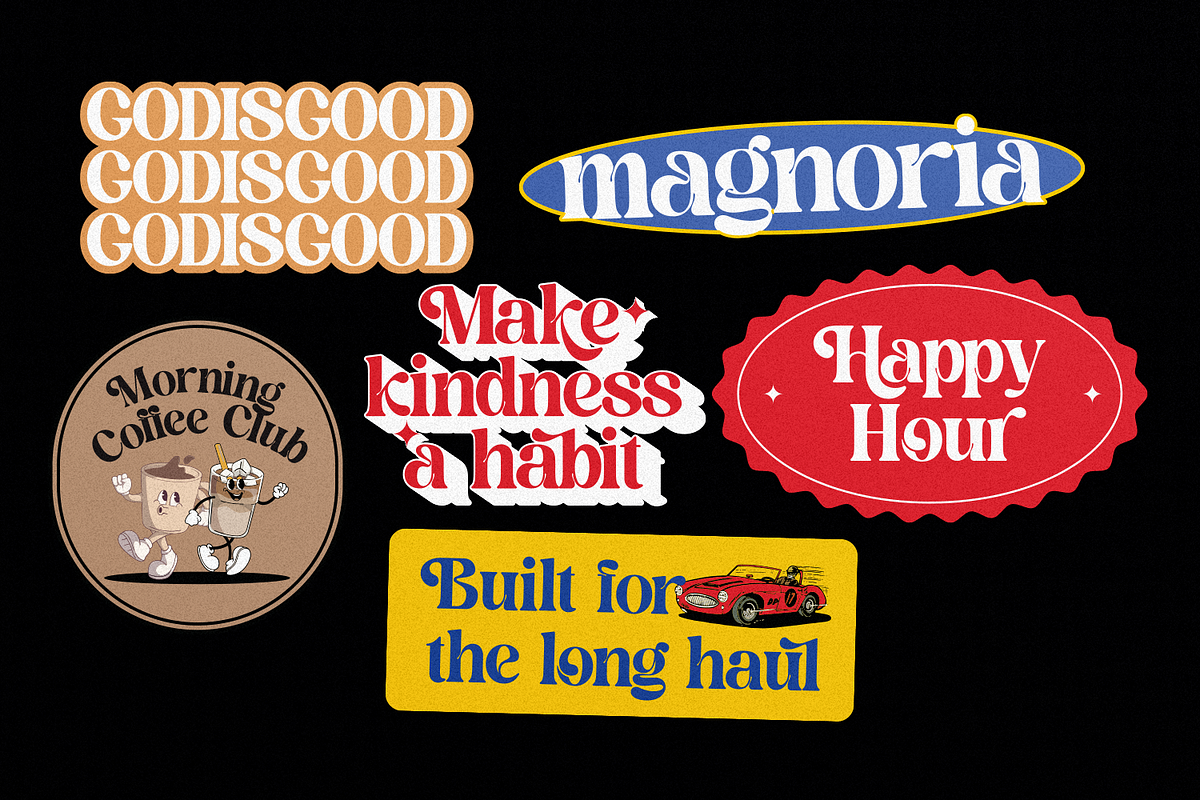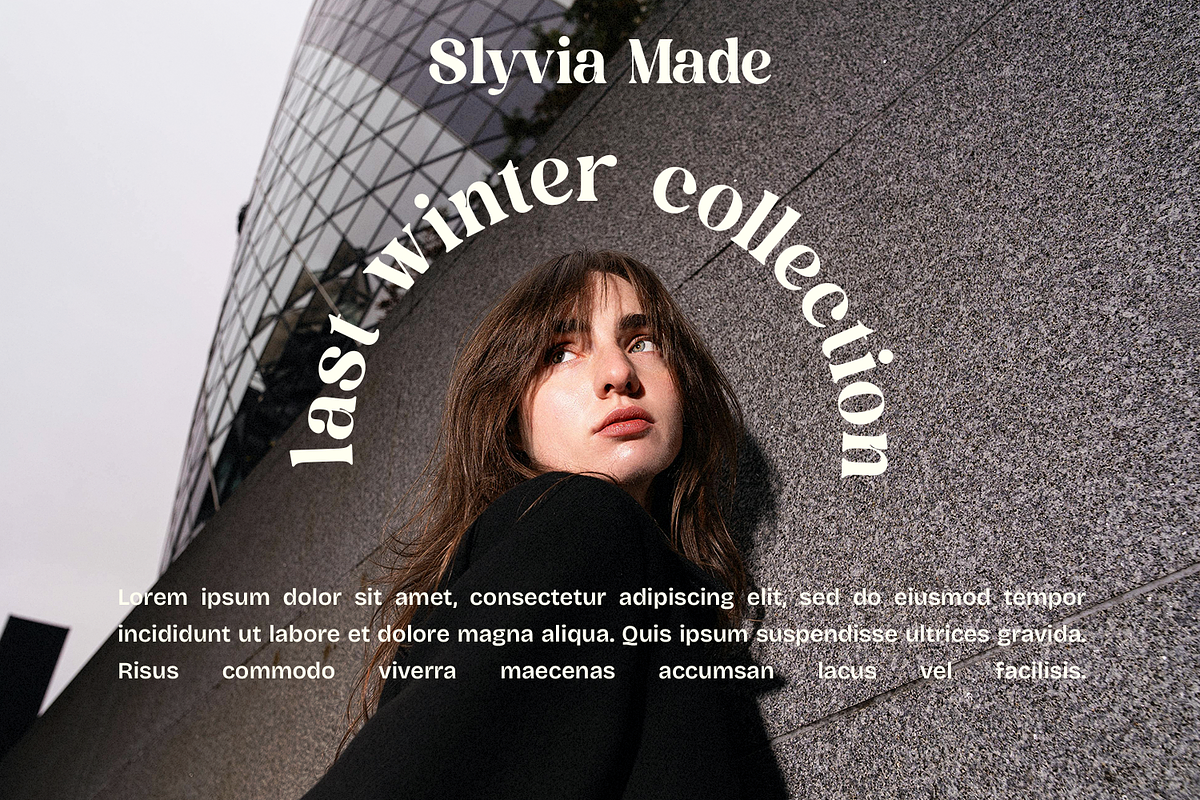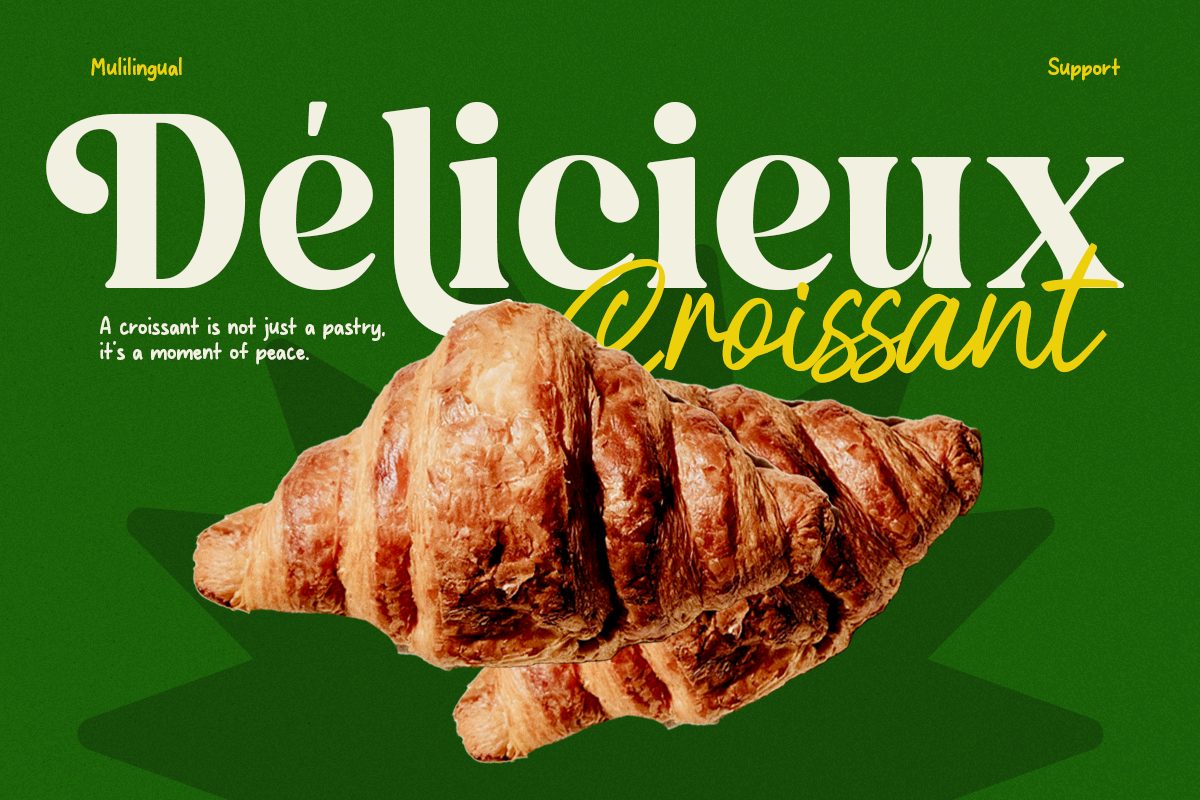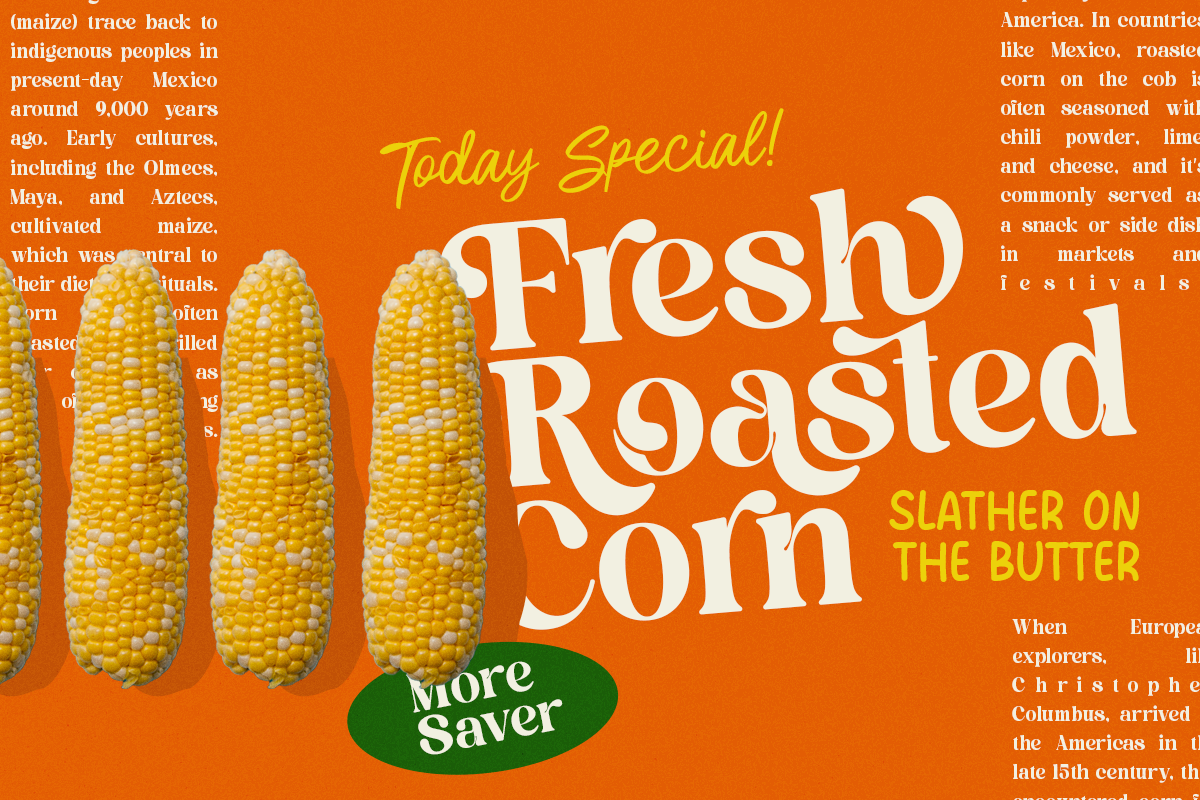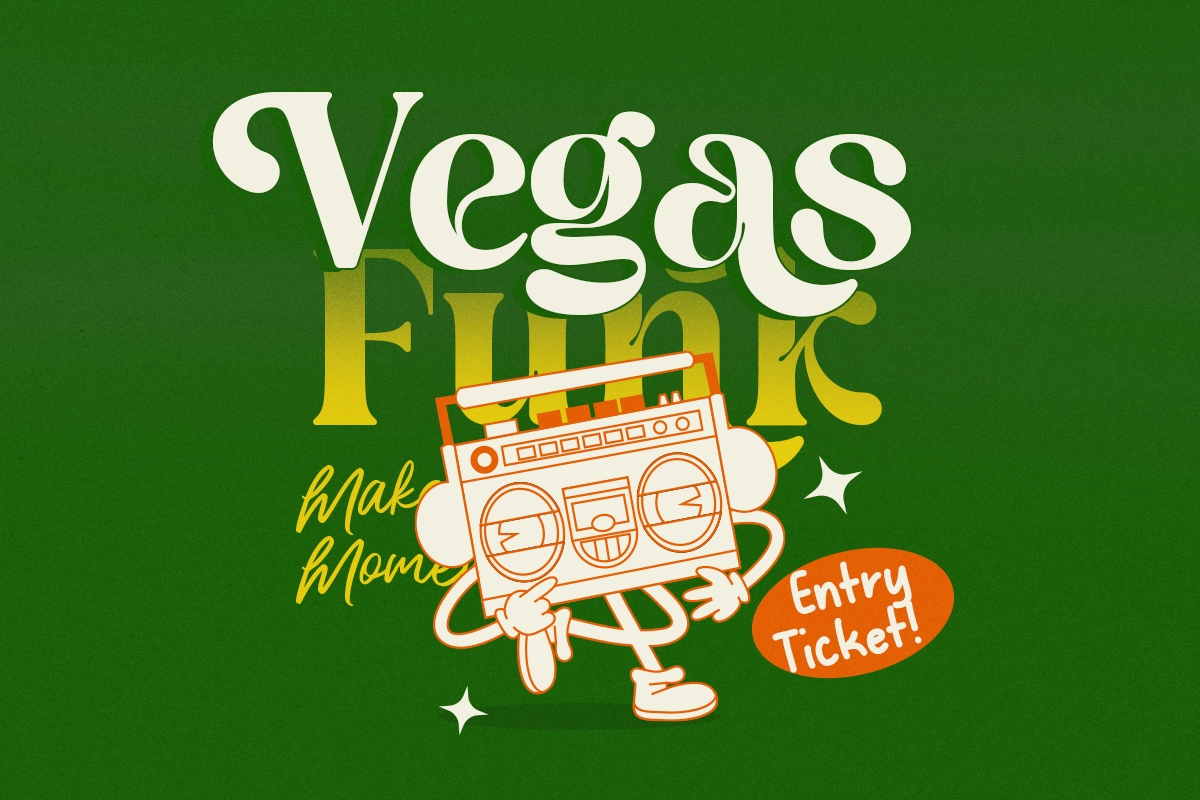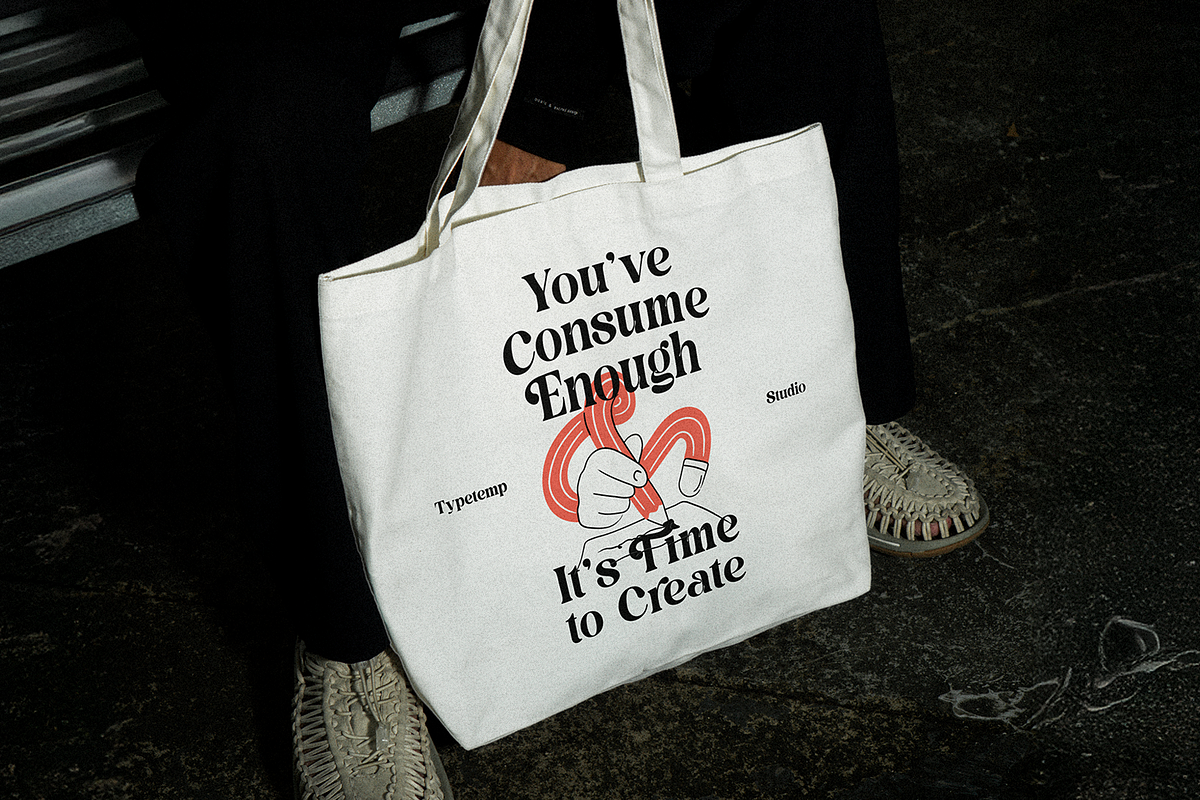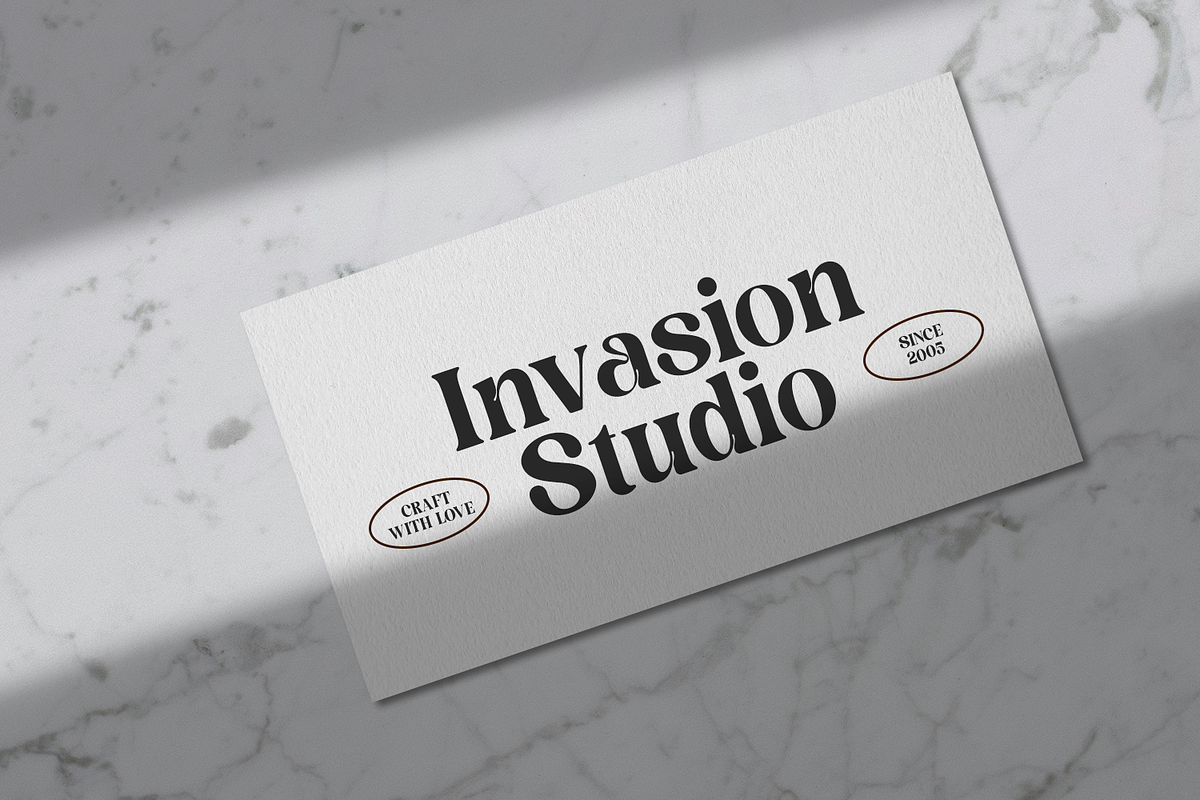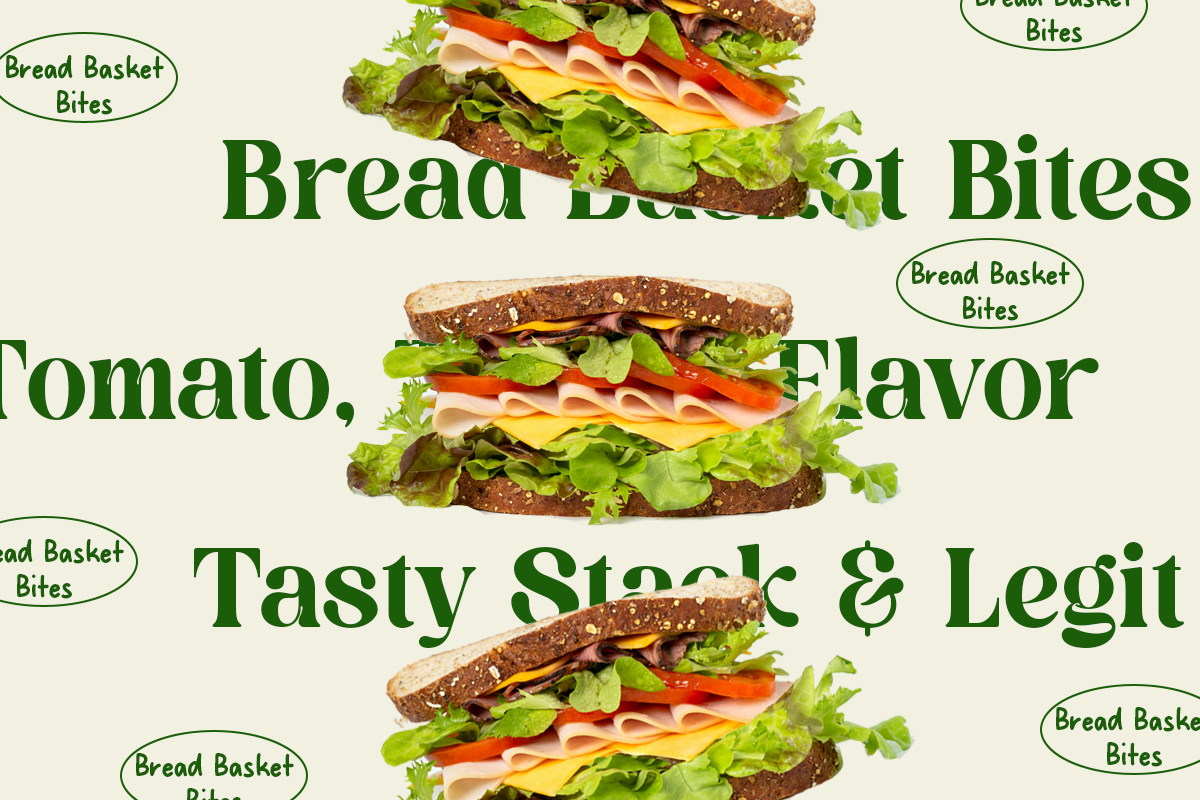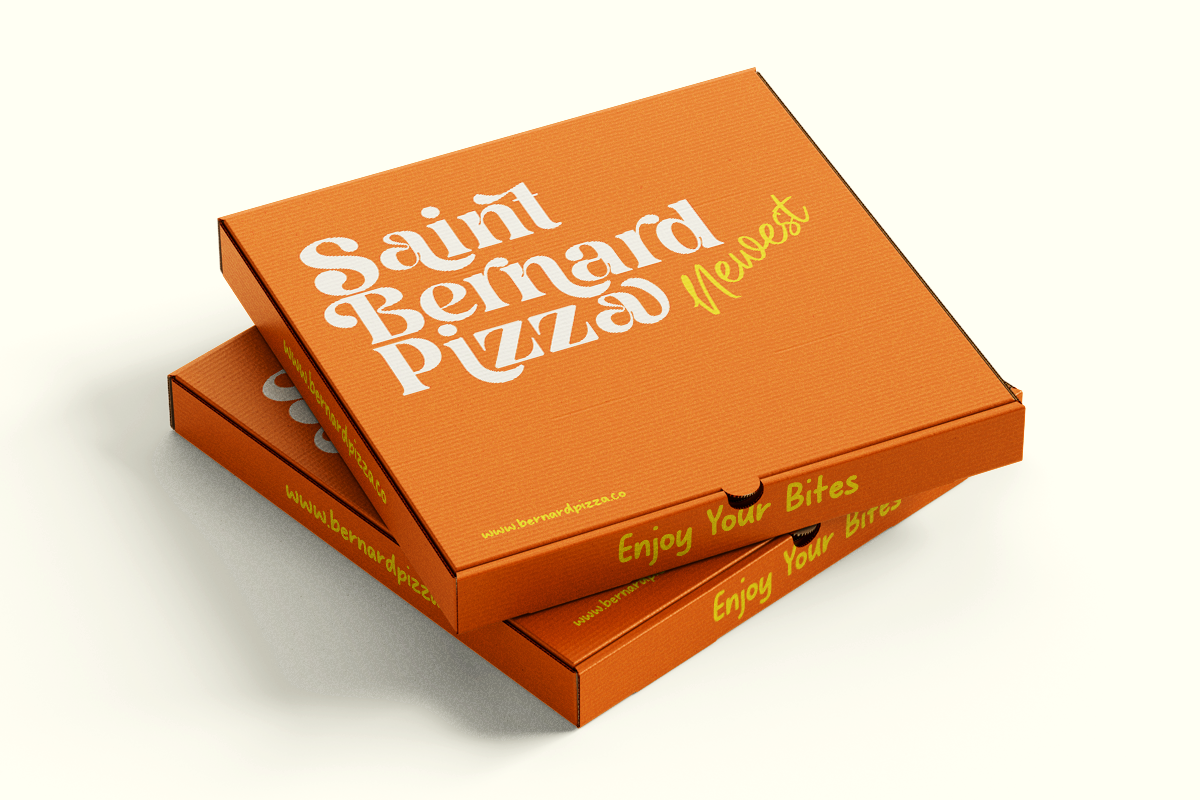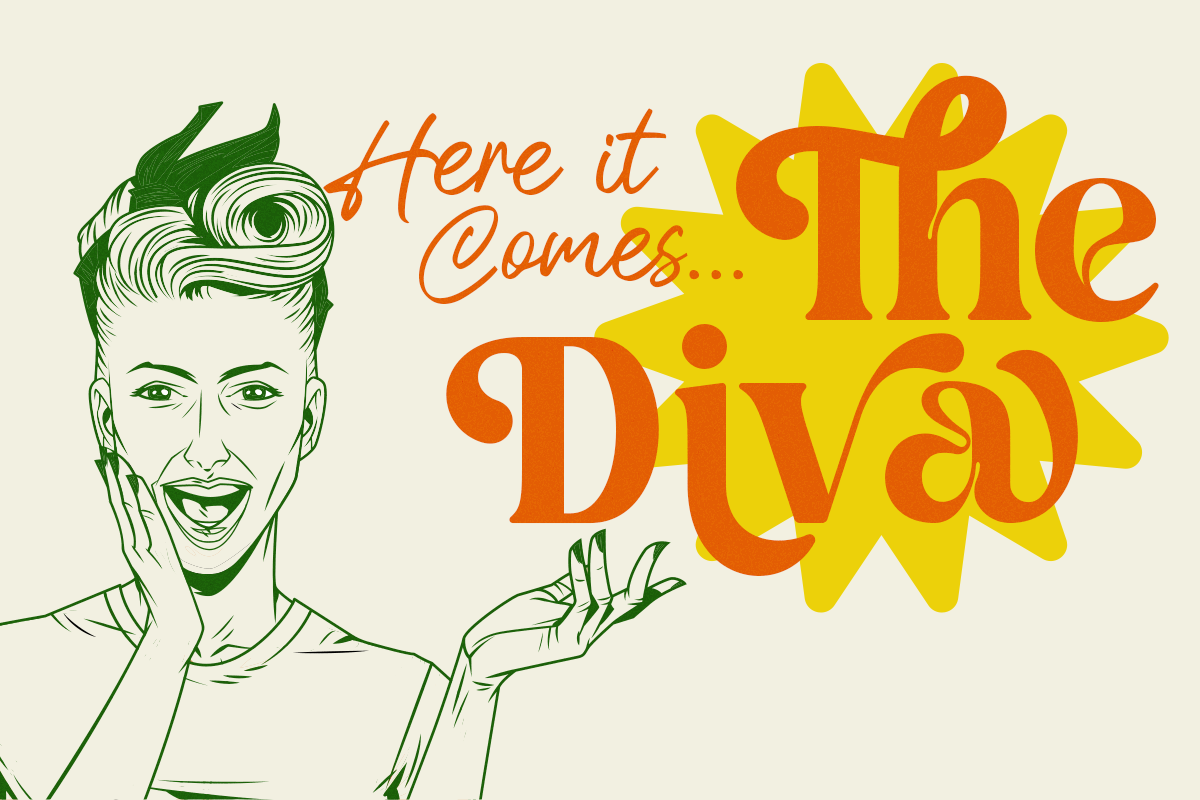
Magnoria – A Playful & Groovy Retro
Step back into the vibrant era of the 70s with Magnoria, a playful retro serif that perfectly balances nostalgic charm with modern versatility. Designed by Typetemp Studio, this font features bold, curvy silhouettes and unique character ligatures that bring a high-spirited, "Refined & Divine" energy to any creative project.
Magnoria is all about personality. Whether you are aiming for a psychedelic vintage look or a clean, contemporary aesthetic with a retro twist, its thick-to-thin strokes and rhythmic flow make it an instant eye-catcher. It is the perfect choice for designers who want to add a touch of funk and elegance to their digital toolkit.
- Unique Retro Character: A blend of classic serif foundations with groovy, exaggerated curves.
- Versatile Stylistic Alternates: Includes creative ligatures and alternates to give your headlines a custom, hand-lettered feel.
- Multi-language Support: Ready for global design projects.
- High Contrast: Optimized for maximum legibility and visual impact.
- Branding & Logos: Create unforgettable identities for fashion, lifestyle, or food & beverage brands.
- Editorial Design: Bold headlines for magazines, lookbooks, and posters.
- Packaging: Stand out on the shelves with labels that exude premium vintage vibes (as seen on our champagne bottle concept!).
- Social Media: Eye-catching quotes, Instagram posts, and trendy Pinterest graphics.
- Merchandise: Ideal for t-shirt designs, tote bags, and retro-themed apparel.